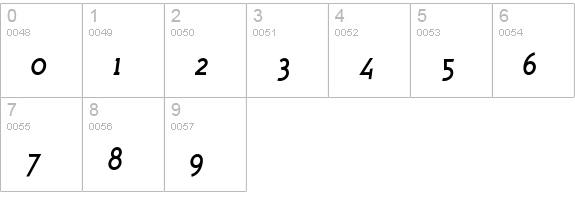
PolymerMediumItalic Font Details
PolymerMediumItalic is a modern and versatile font that strikes the perfect balance between professionalism and creativity. Its sleek and elegant design makes it suitable for a wide range of projects, from branding to editorial design. The italic style adds a touch of sophistication and flair to any text, making it stand out in a subtle yet impactful way. What sets PolymerMediumItalic apart is not only its aesthetic appeal but also its accessibility. This font is free to download at FontsMarket.com, allowing designers and creators of all levels to incorporate it into their work without any cost barriers. Whether you're working on a personal project or a commercial endeavor, PolymerMediumItalic offers a high-quality typographic solution that is both visually appealing and easy to use. With its clean lines, balanced proportions, and distinctive italic styling, PolymerMediumItalic is sure to elevate any design project it graces. Download this font for free today and discover the endless possibilities it has to offer.